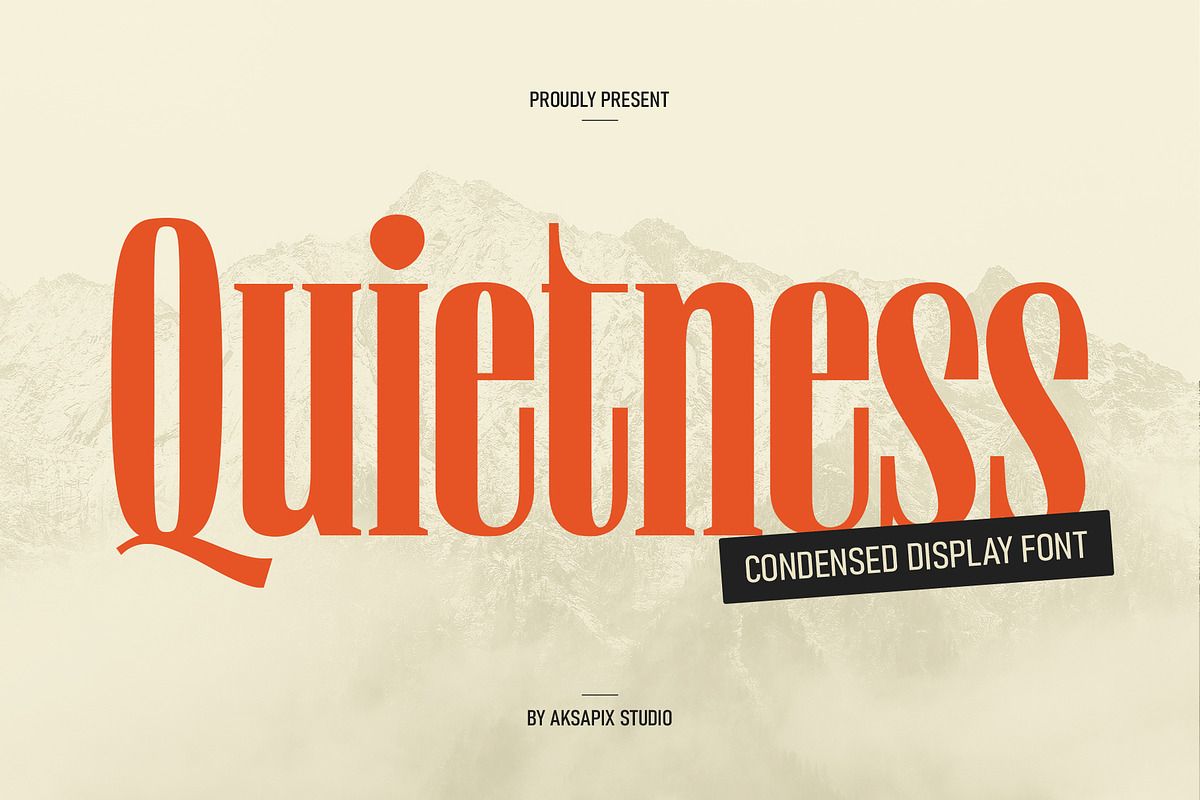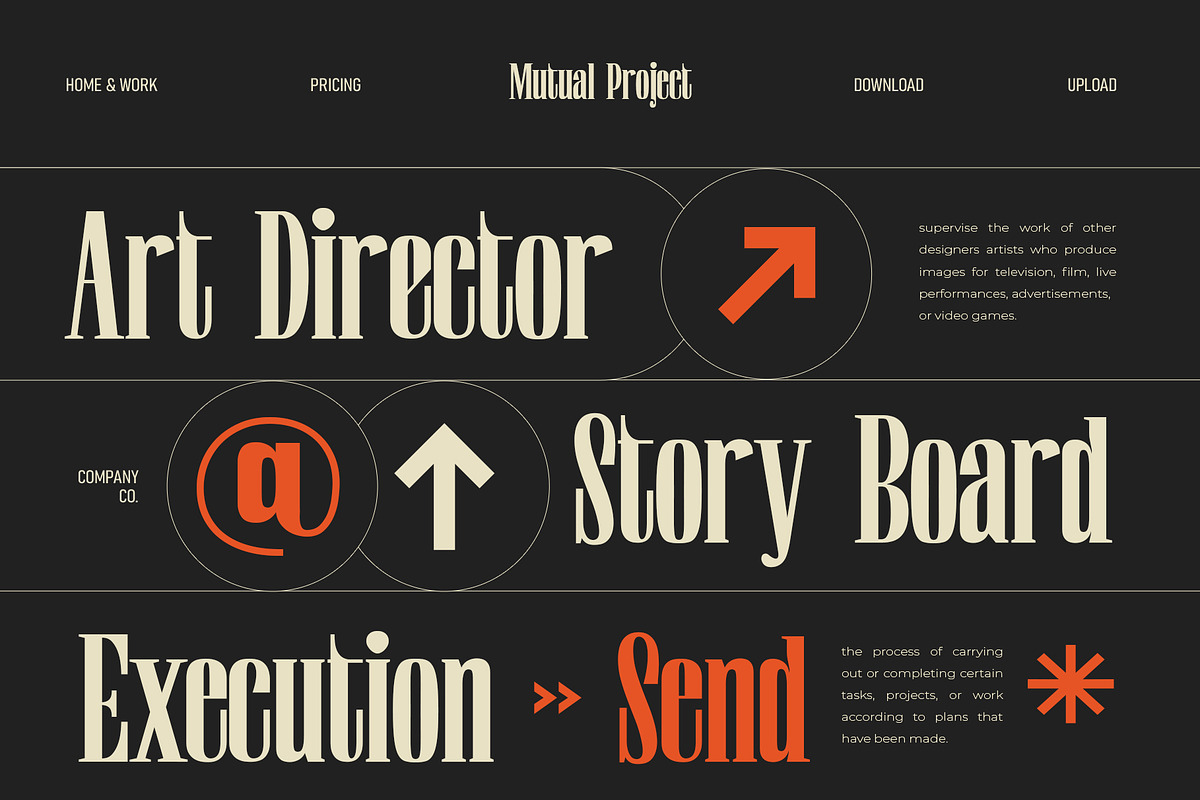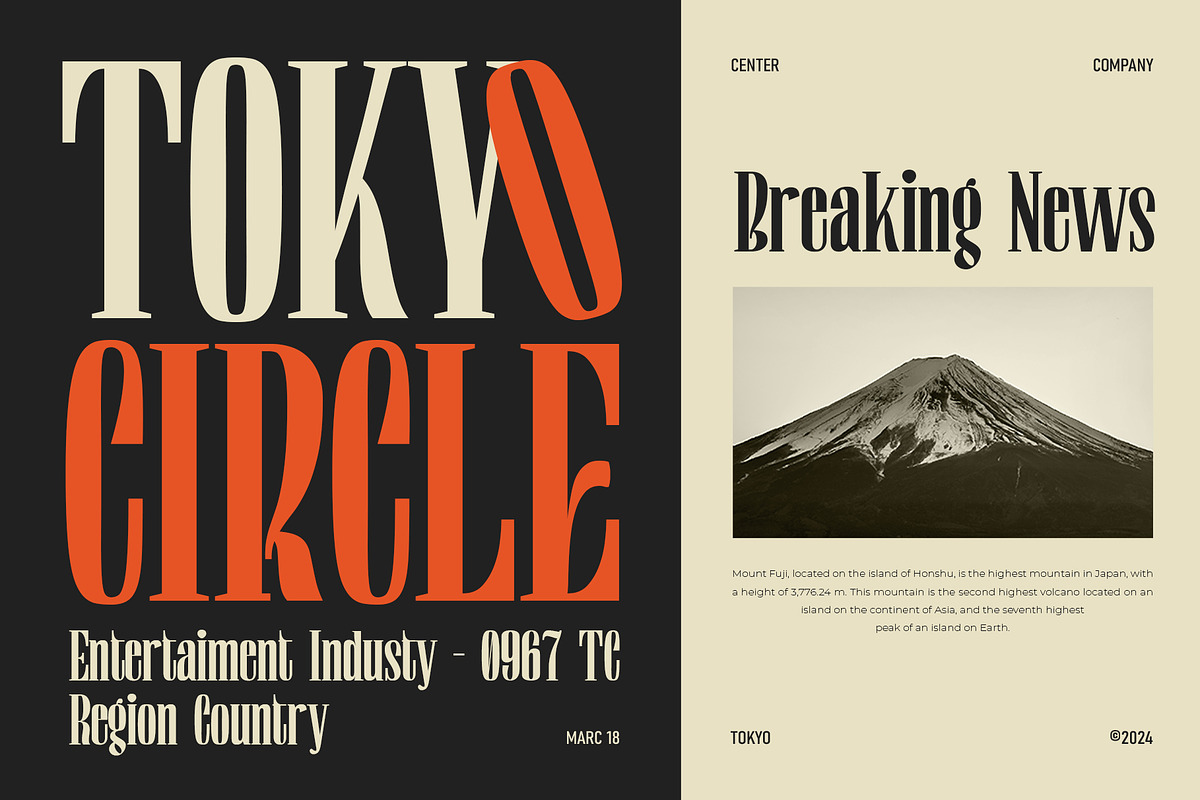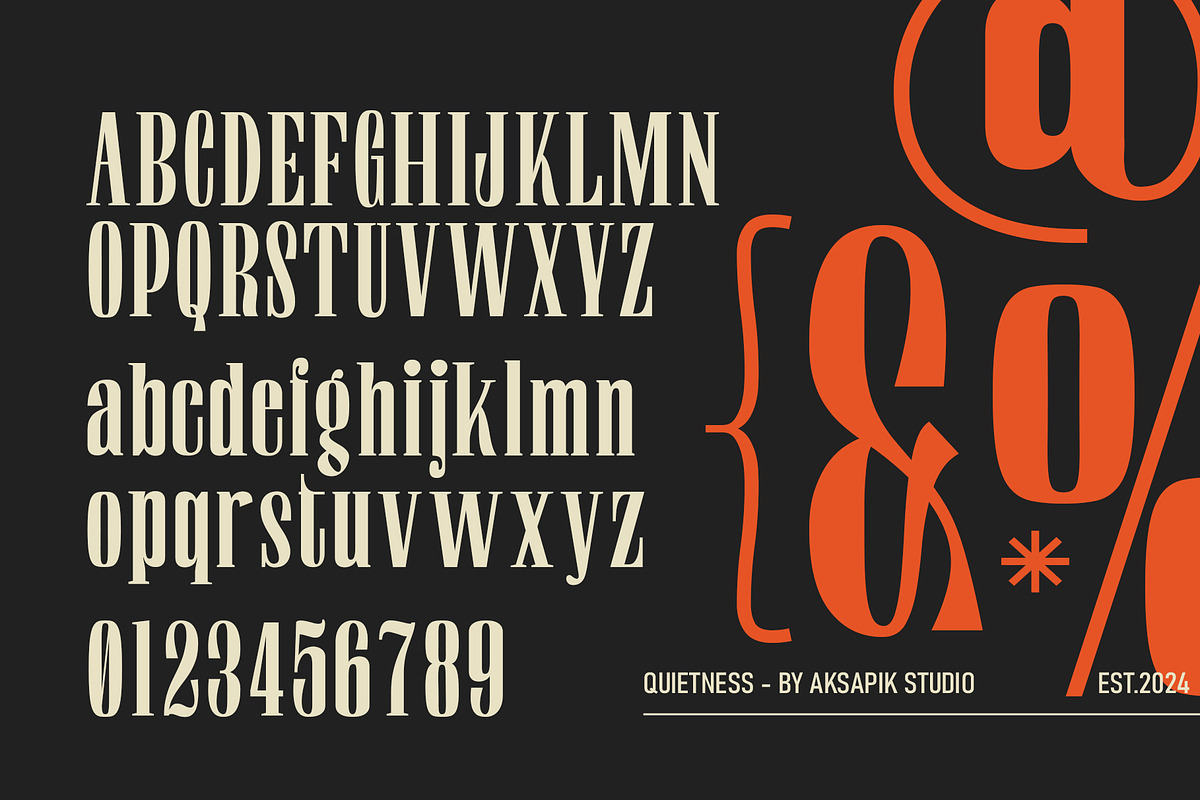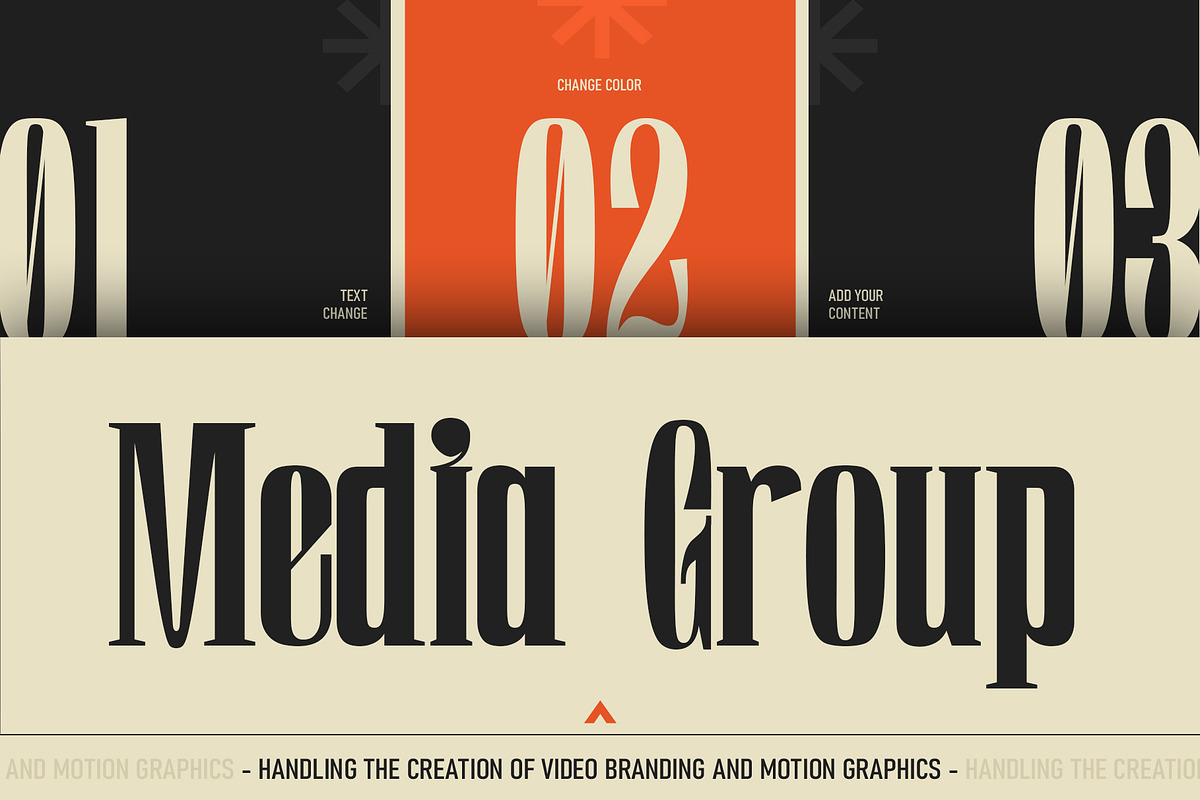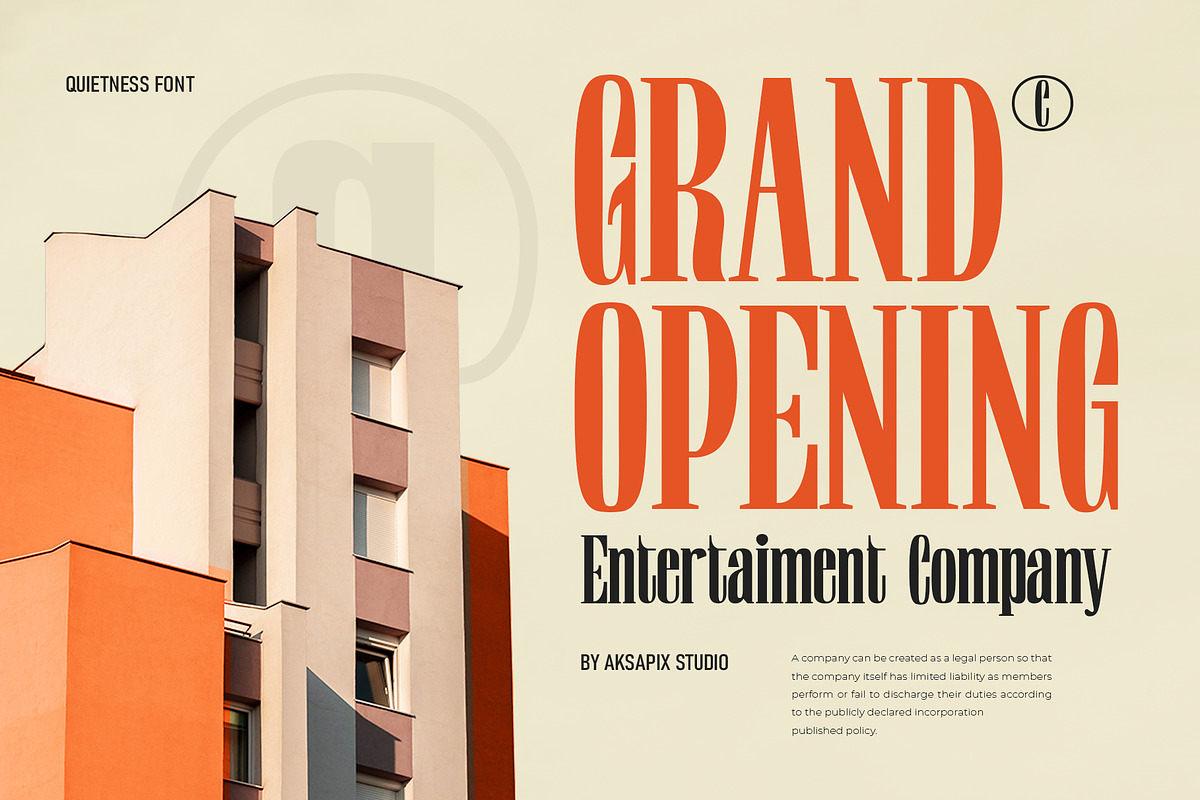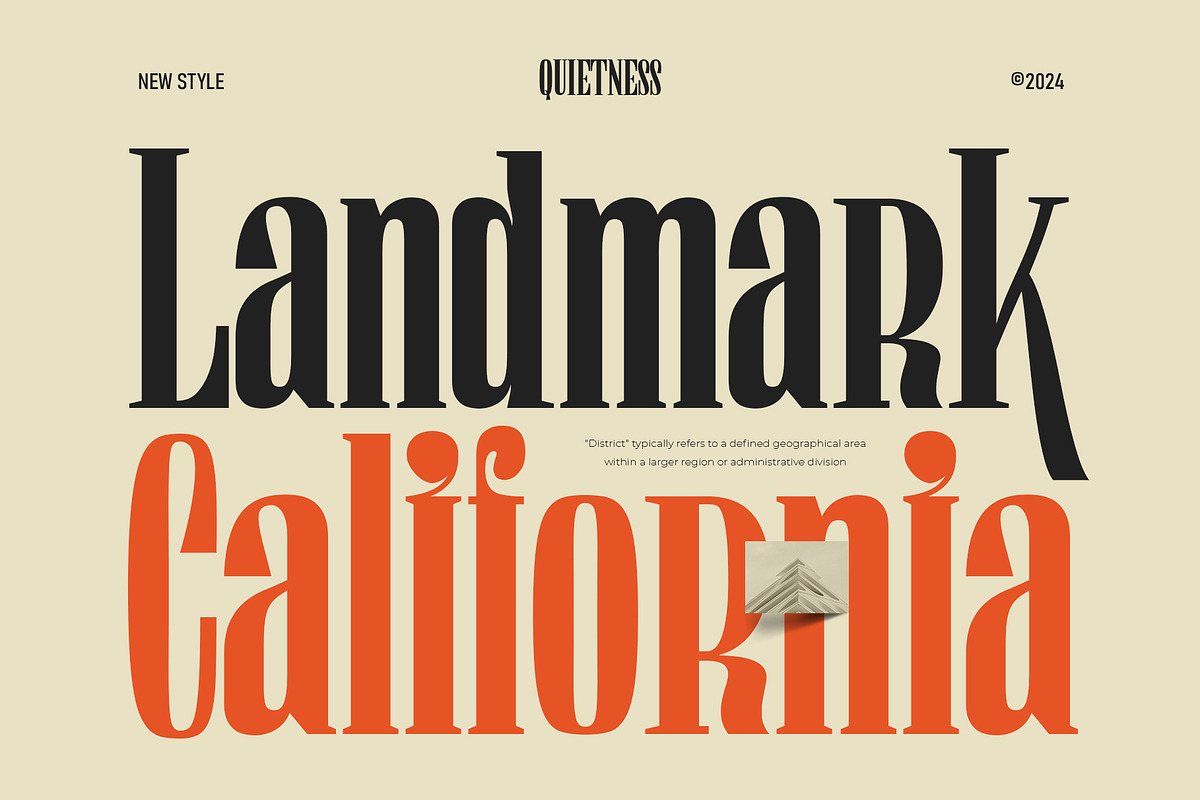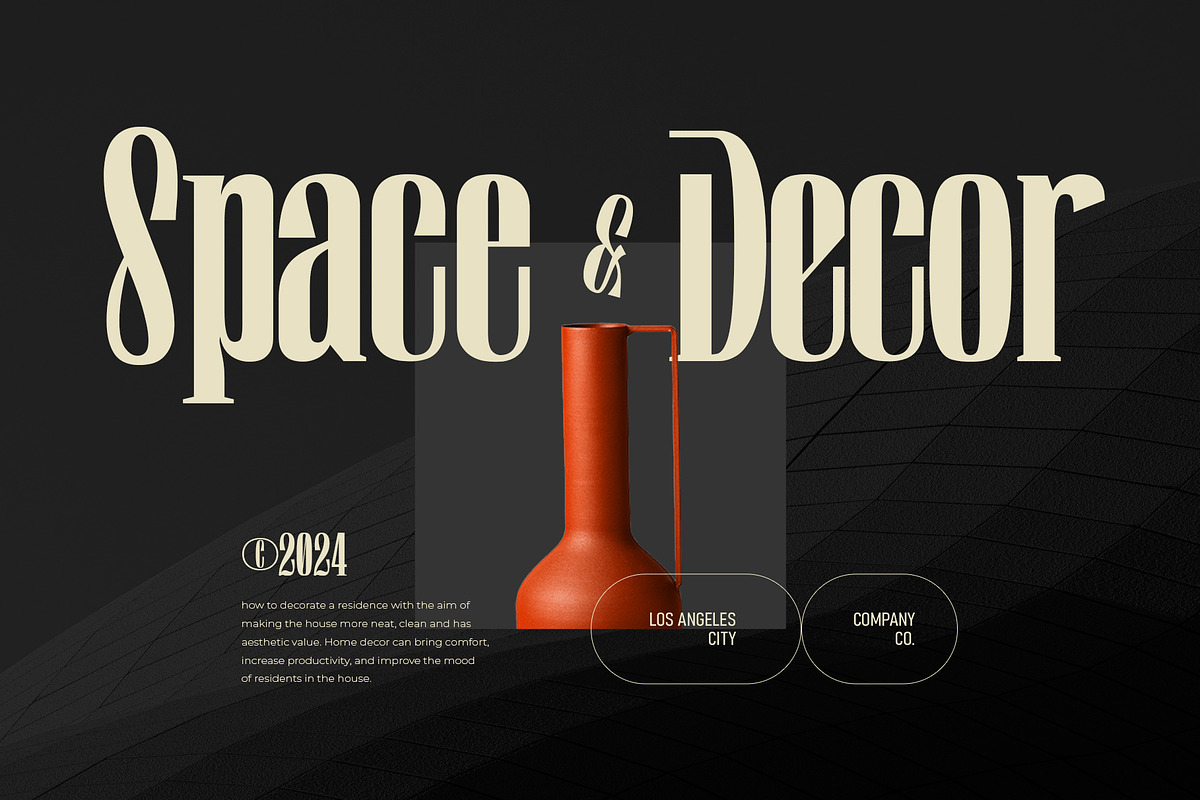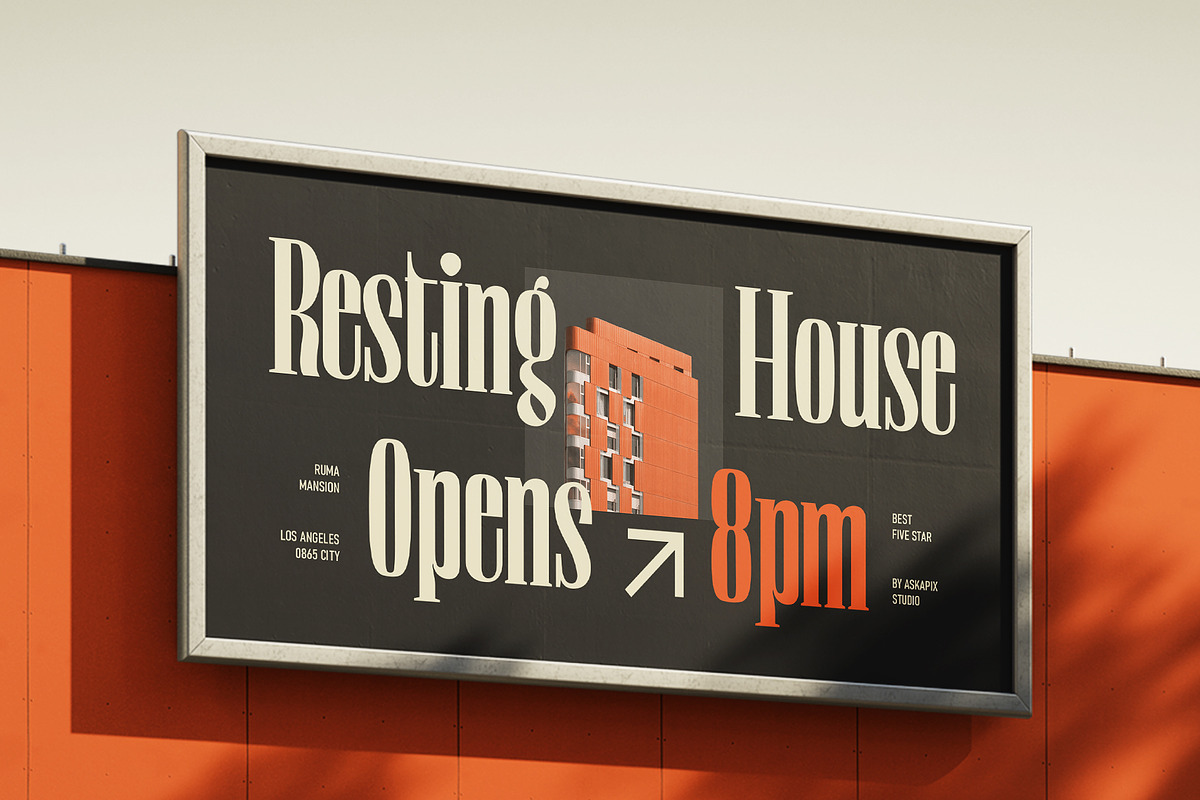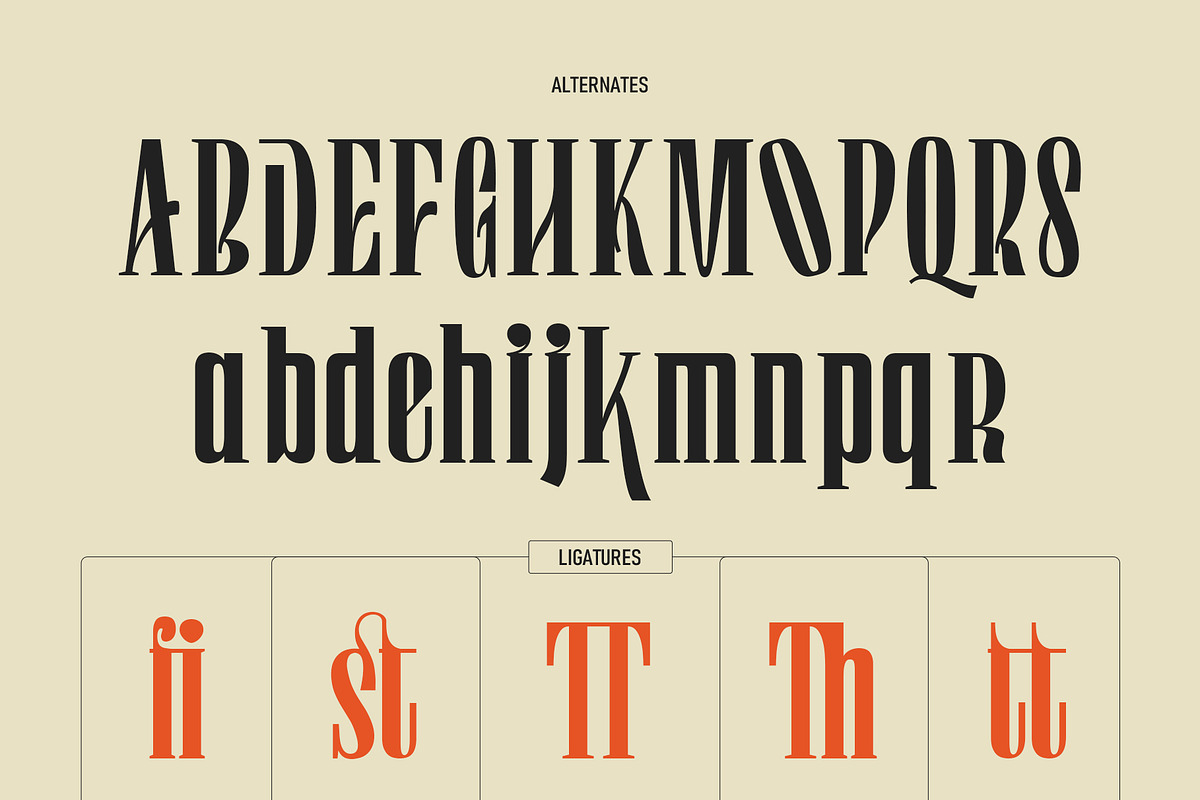
Quietness Condensed
Discover the elegance and sophistication of Quietness - Condensed Font. This beautifully crafted typeface brings a modern and minimalist aesthetic to your design projects. With its sleek, condensed structure, Quietness offers a unique blend of style and readability, making it perfect for a variety of creative applications.
Stylistic Alternates: Quietness comes with a set of stylistic alternate characters, providing you with additional creative options to enhance your designs.
Ideal For:
Branding and Logos
Editorial and Publishing
Web Design
Advertising and Marketing Materials
Embrace the quiet confidence of Quietness - Condensed Font and elevate your design projects to new heights. Whether you're creating a bold headline, an elegant logo, or a striking social media post, Quietness delivers a refined and professional touch every time.